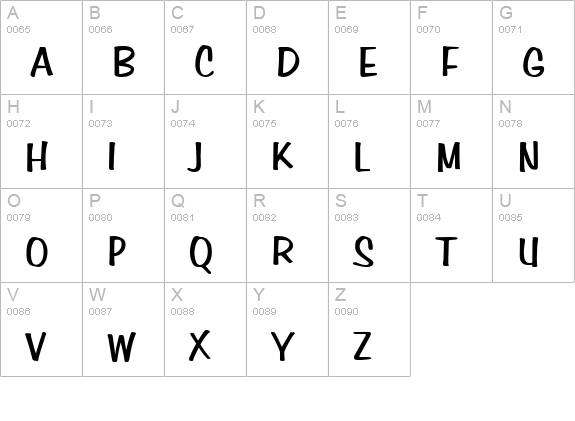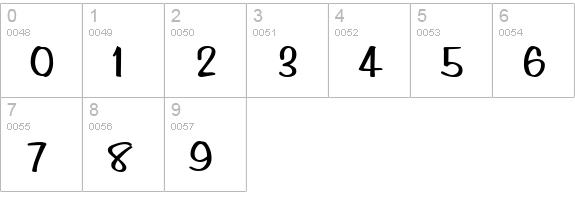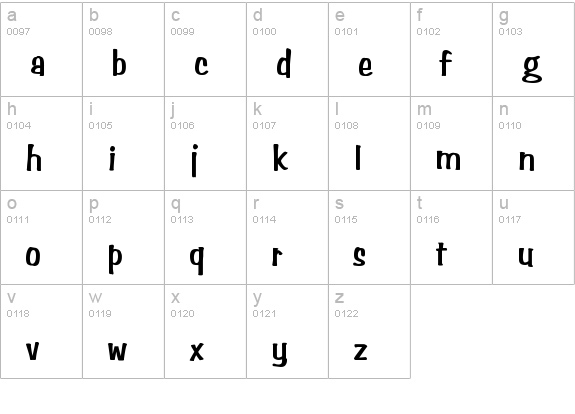
Simpson Bold is a strong, high-contrast variant in the Simpson typeface family \xE2\x80\x94 well suited to headlines, attention-grabbing titles, and strong calls-to-action.
Introducing Simpson Bold, a striking and captivating font that exudes confidence and style. With its bold and commanding presence, Simpson Bold is perfect for making a bold statement in your designs. This versatile typeface boasts strong and sturdy letterforms, carefully crafted to create a sense of power and authority. Its thick strokes and sharp angles make it ideal for headlines, logos, posters, and any design project that demands attention. Simpson Bold stands out from the crowd with its unique combination of modern and classic elements. It seamlessly blends contemporary aesthetics with a touch of timeless elegance, resulting in a font that is both visually appealing and highly legible. But what makes Simpson Bold even more appealing is that it is available free of charge! Yes, you read that right. You can freely download this remarkable font at FontsMarket.com, a leading online platform for high-quality fonts. Whether you are a professional designer looking to enhance your typography arsenal or a creative enthusiast seeking to add a touch of sophistication to your personal projects, Simpson Bold is the perfect choice. Its bold, impactful presence combined with its accessibility will surely make it a favorite amongst designers and non-designers alike. So why wait? Experience the power and allure of Simpson Bold today by downloading it for free at FontsMarket.com. Let this exceptional font elevate your designs and leave a lasting impression on your audience.